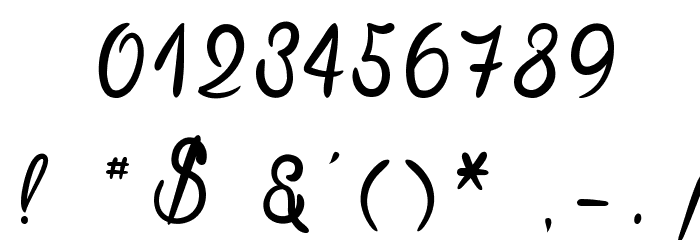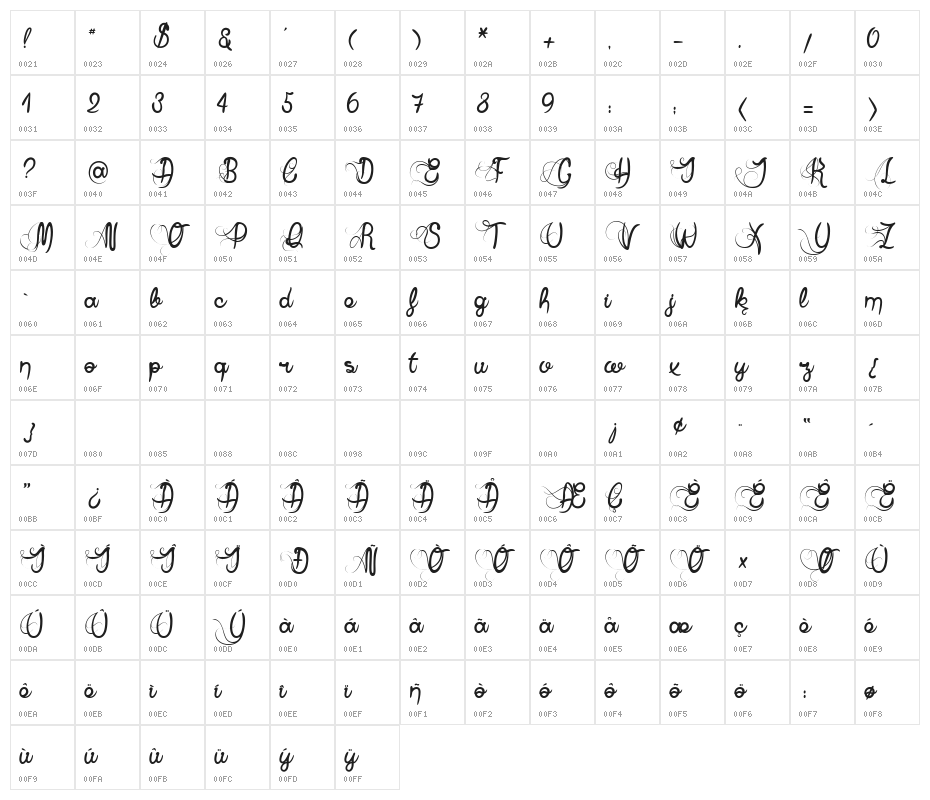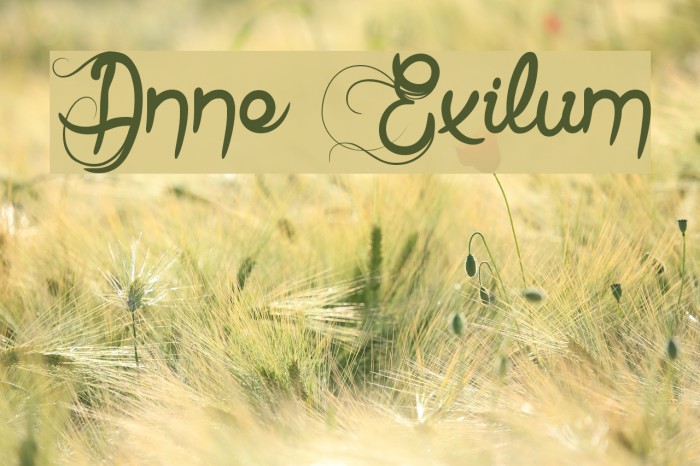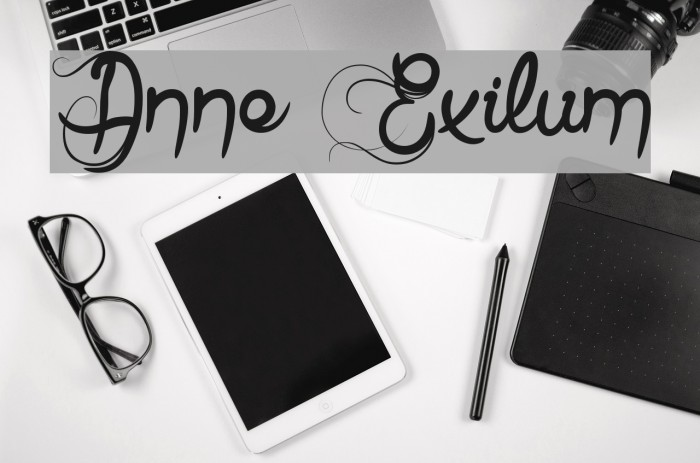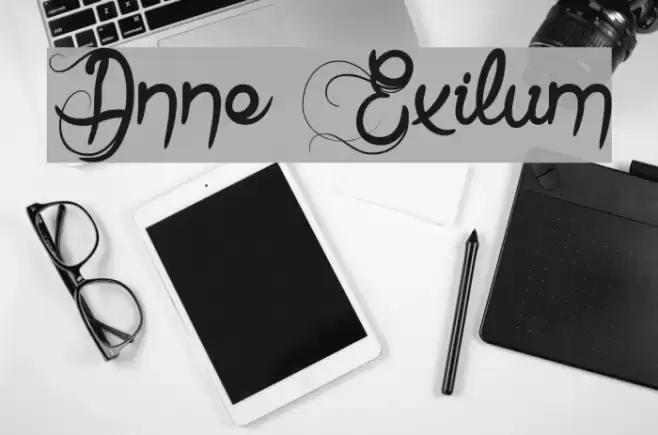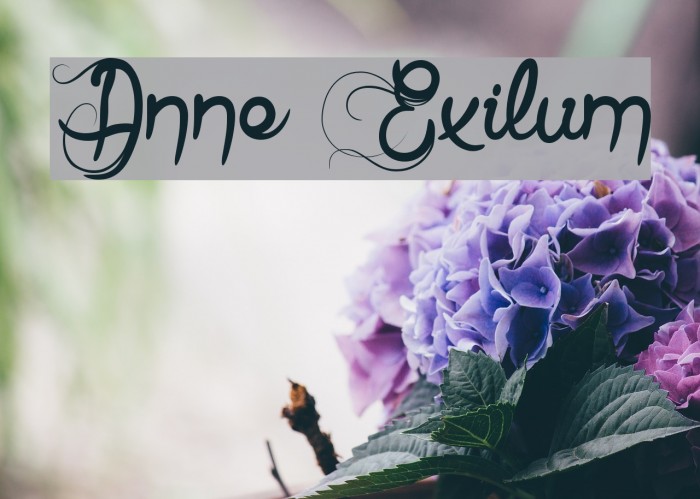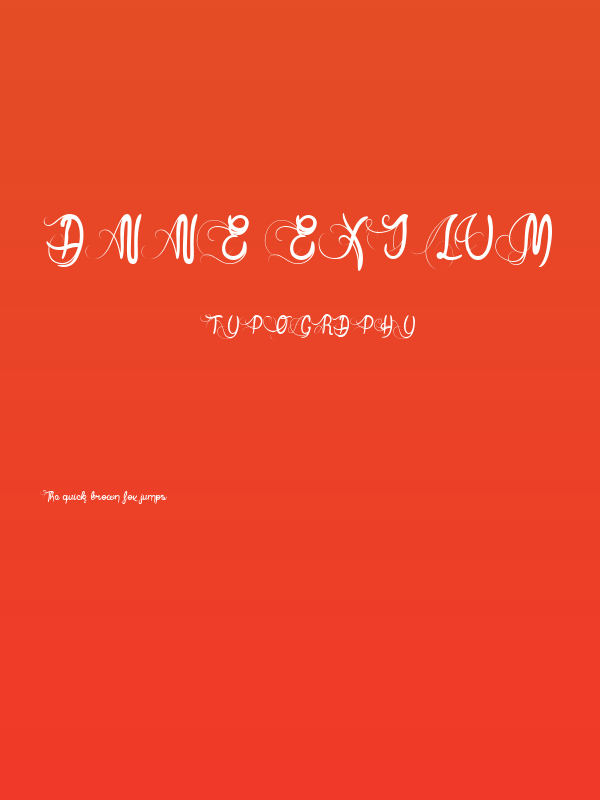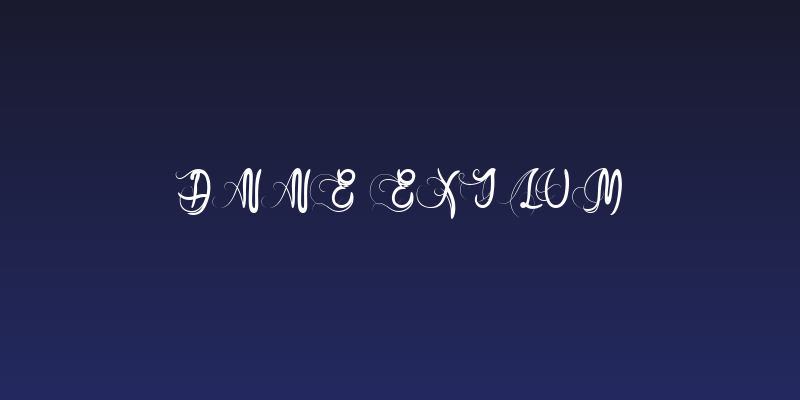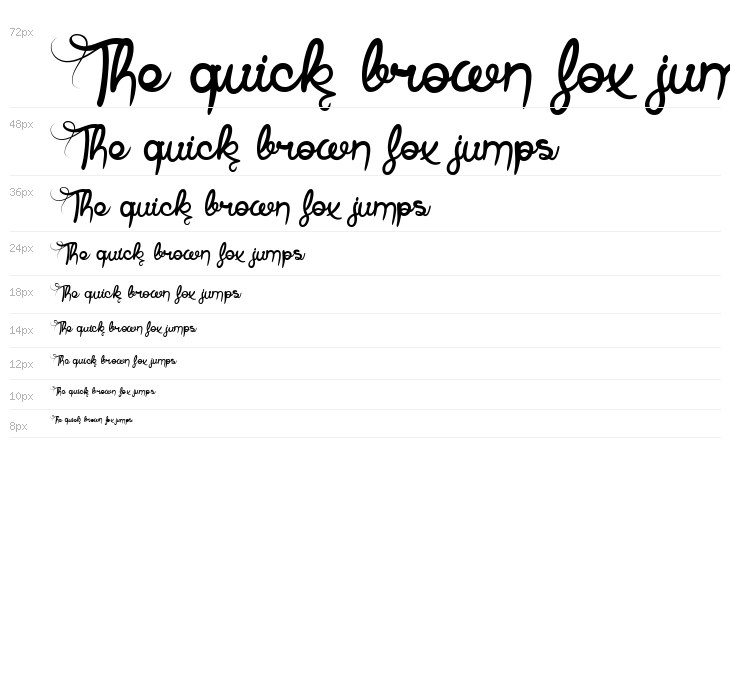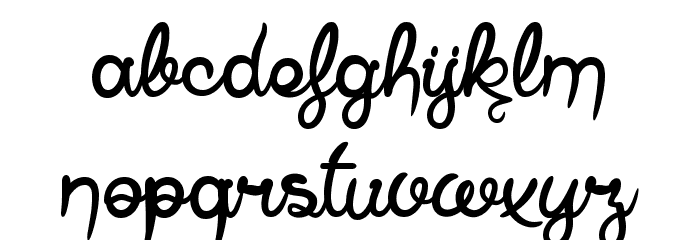
Anne Exilum Font
Anne Exilum Description
This font features an elaborate and decorative style, with uppercase letters adorned with intricate swirls and flourishes that give it a highly ornamental appearance. The lowercase letters maintain a more fluid and cursive script style, offering a contrast to the ornate capitals. The numerals are consistent with the lowercase style, providing a cohesive look. Special characters are designed with similar attention to detail, enhancing the overall aesthetic. The font's artistic flair makes it suitable for creative and expressive design projects.
| Use Case | Logos, Invitations, Artistic Projects |
| Proposed Projects | Ideal for wedding invitations, greeting cards, branding for luxury products, and artistic posters. |